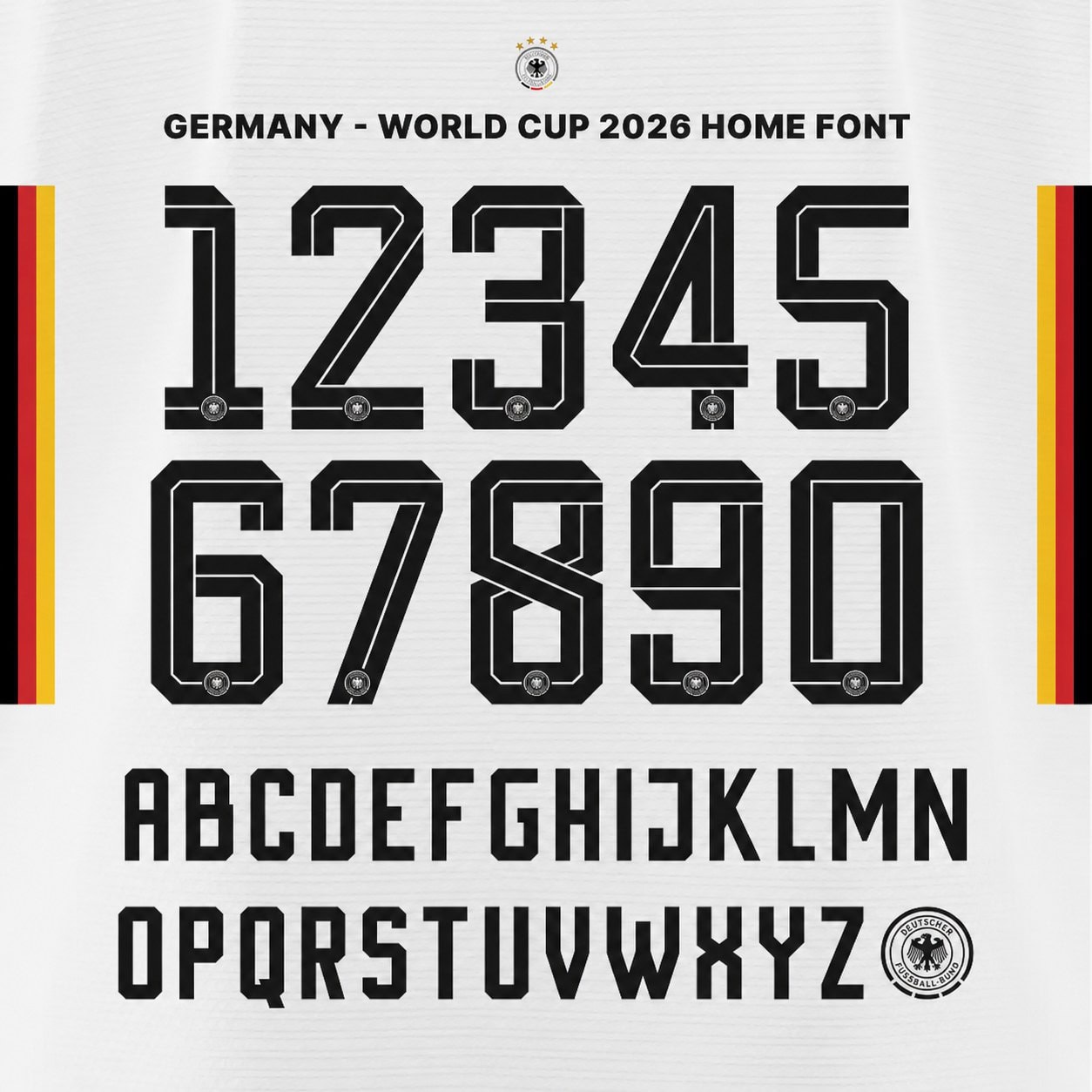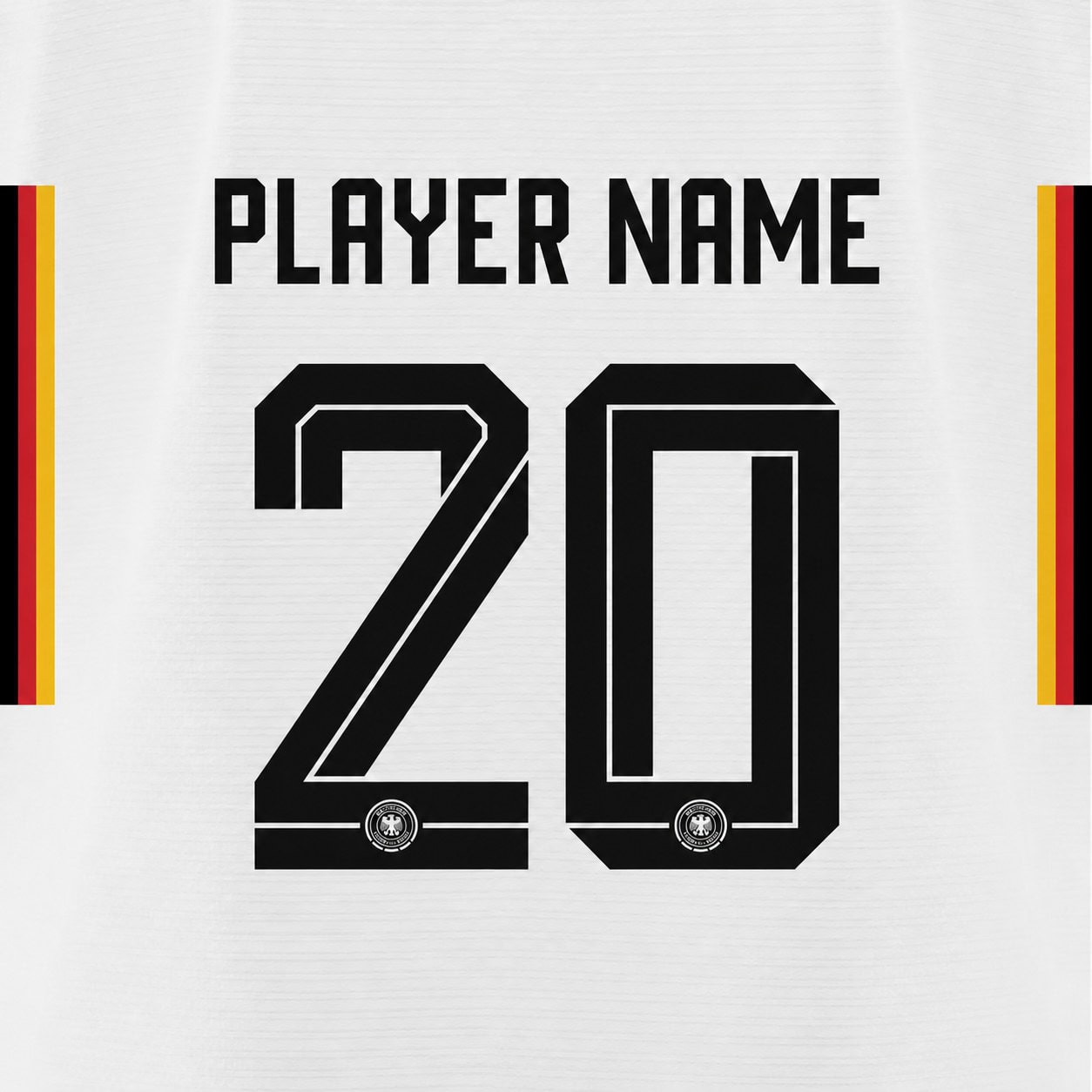
Complete Germany World Cup 2026 home font set — every letter and every number in one kit, in the lettering style of the 2026 national team home shirt, black colourway as shown.
- Full set included: all letters A–Z + all numbers 0–9, exactly as shown
- Fine crest detailing inside the numbers
- Make any name & number combination (e.g. MUSIALA 10) — fits adult and kids jerseys